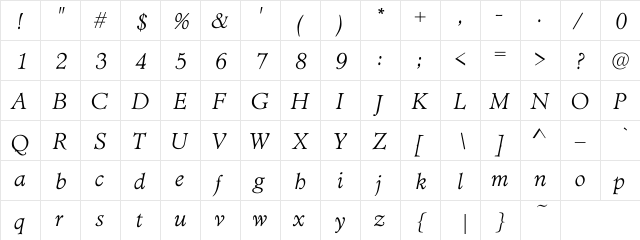
Minister Light Italic Regular Font Preview
Minister Light Italic Regular
Minister Light Italic Regular Font Details
Design Context for Minister Light Italic Typeface
Minister Light Italic is a composed and adaptable typeface that performs quietly and consistently across a wide range of design contexts. The dynamic lean of this cut emphasises speed and emphasis in any layout. Its slender proportions lend an understated elegance to any composition.
Pro Tip: Use Minister Light Italic for emphasis, pull quotes, and subheadings where its slanted energy can add rhythm to the layout.